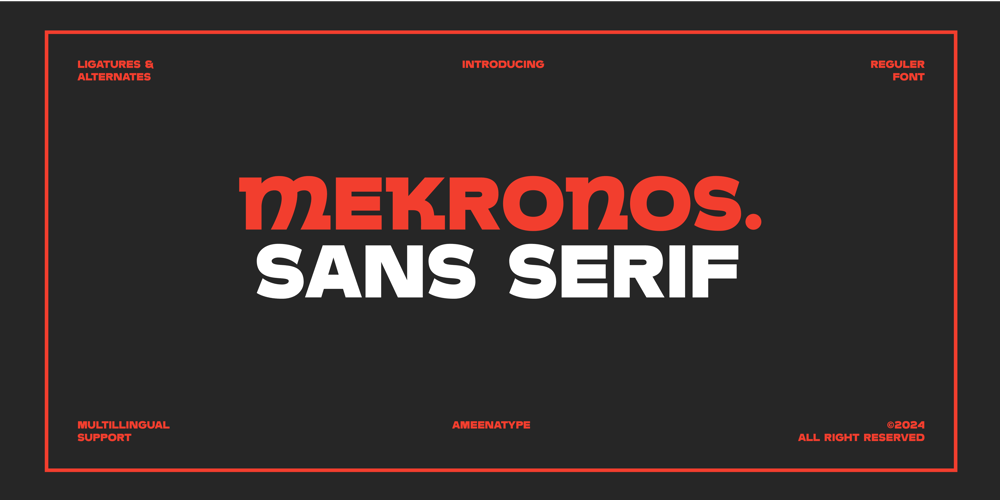
Mekronos Font Family was designed by Syaiful Rizal Muhaimin and published by Ameenatype. Mekronos contains 1 styles and family package options. Introducing MEKRONOS SANS SERIF, a modern sans-serif font with a clean, bold, and versatile appearance. Designed with the perfect balance between contemporary aesthetics and optimal readability, this font is ideal for various design purposes, from logos and branding to web design, marketing materials, and print publications.MEKRONOS SANS SERIF offers flexibility for designers to create dynamic and engaging designs. Its well-proportioned characters and refined details make it comfortable to read at any size, whether on screens or in print.